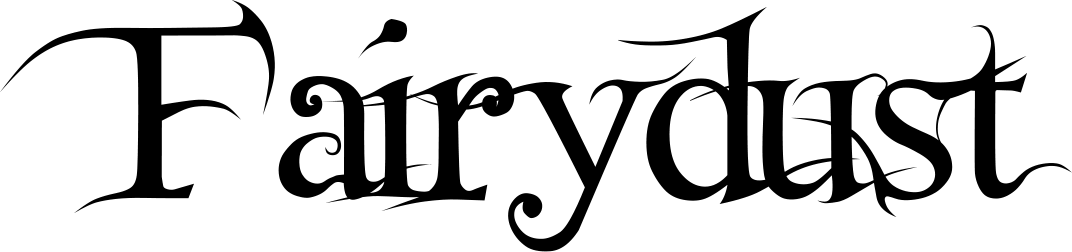
FairydustB Font
Designed byMarcel de Jong
If you are looking for a medieval gothic font, you will enjoy this specific one that has a horror style to its spectacular design. The bold, jagged characters of FairydustB have aggressive, forceful edges and sharp, slim swash tails; it delivers a vintage, old-fashioned style to your typography.
It included mixed letters, numbers, and punctuation that have been designed to perfection. You might find this witch font useful for tattoos, books, games, movies, and wherever you have in mind or wish to display your imagination!